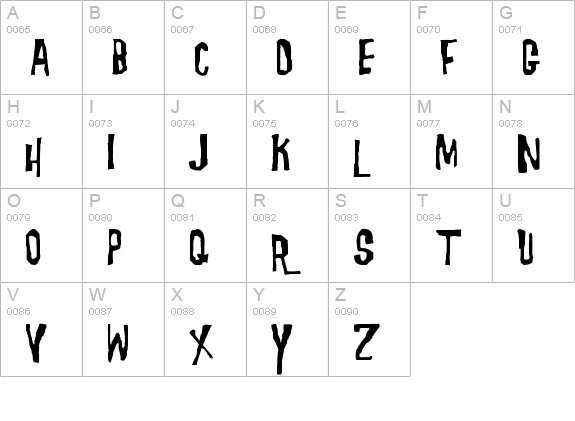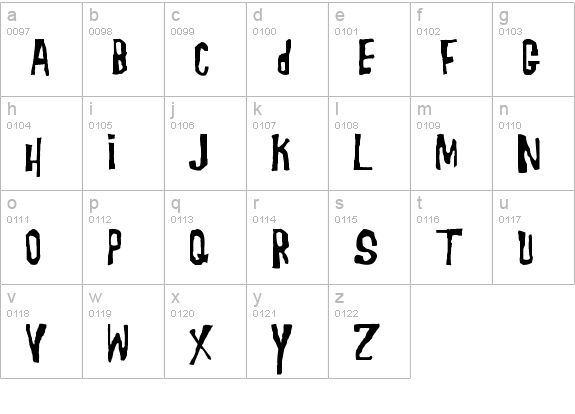
Morgus the Magnificent Font Details
Introducing Morgus the Magnificent font, a striking and bold typeface that exudes elegance and power. With its intricate design and unique characteristics, this font is perfect for creating eye-catching headlines, logos, and branding materials. Morgus the Magnificent font is a versatile choice for both digital and print projects, adding a touch of sophistication to any design. What makes Morgus the Magnificent font even more appealing is that it is available for free download at FontsMarket.com. You can easily access this stunning font and elevate your designs with its impressive presence. Don't miss out on the opportunity to use Morgus the Magnificent font in your next creative project and make a lasting impression.